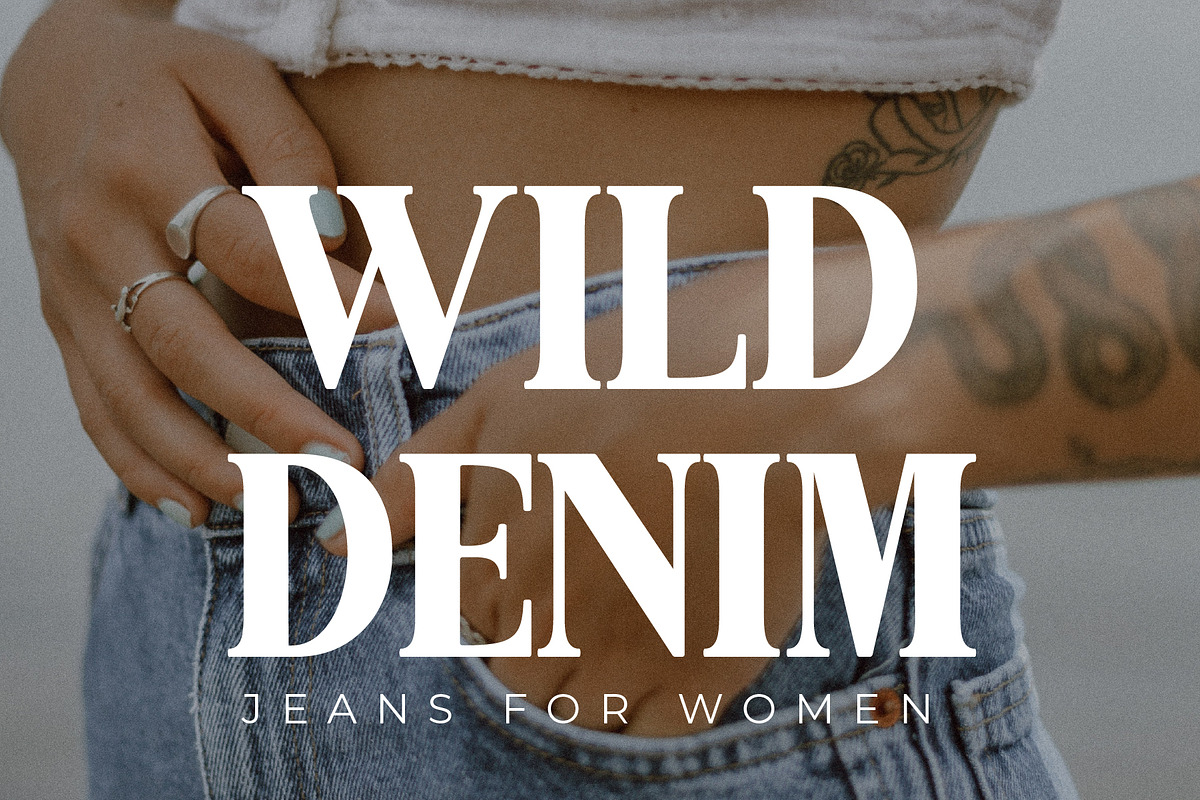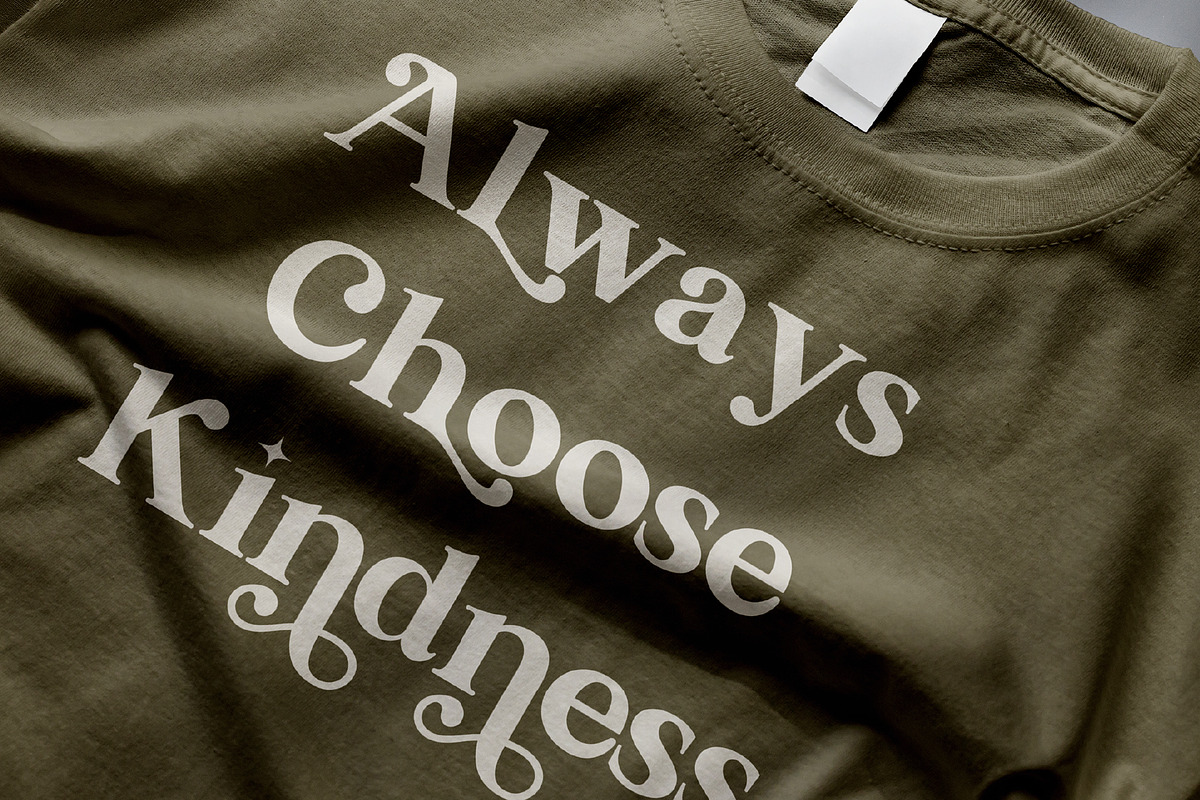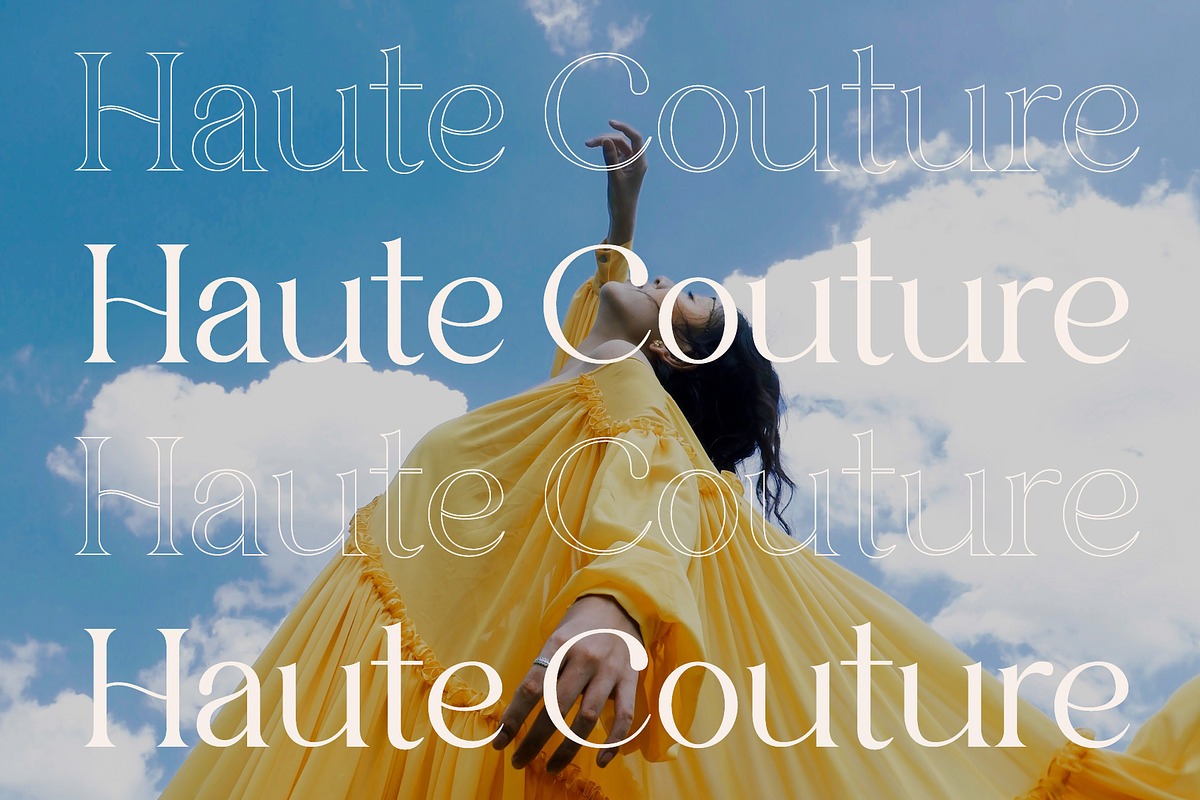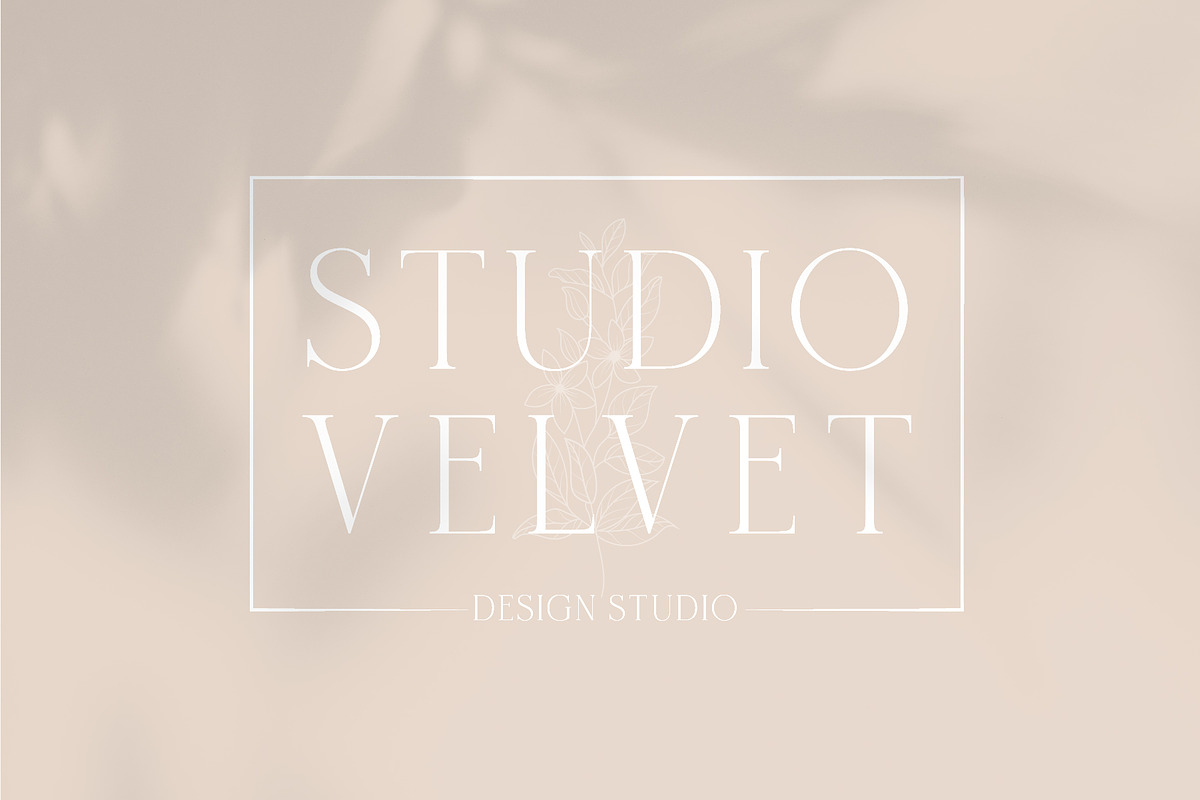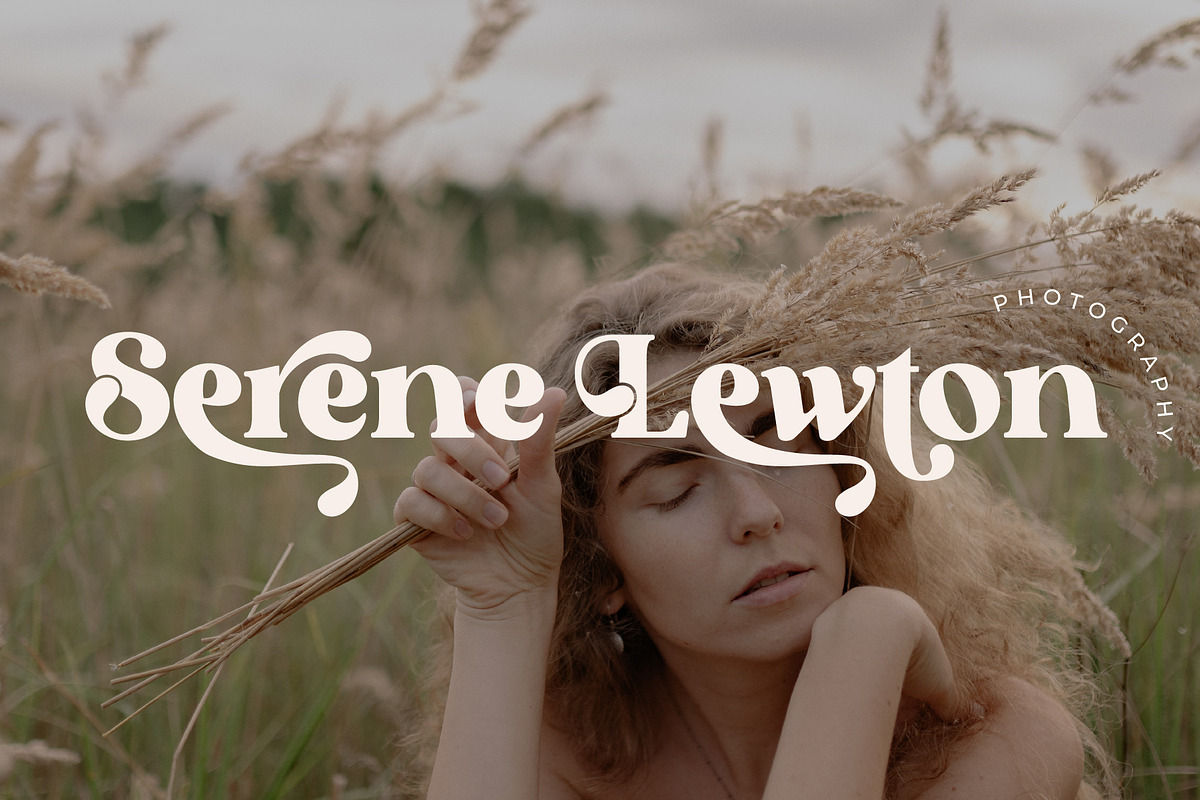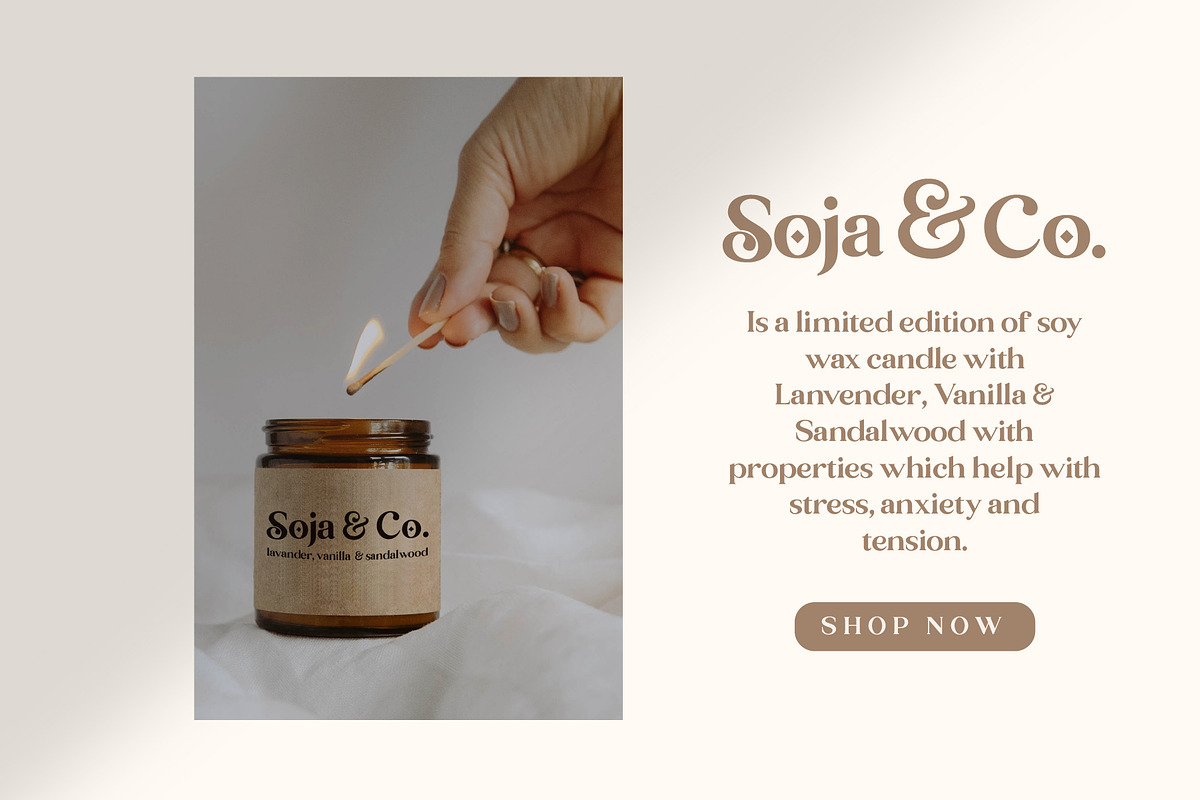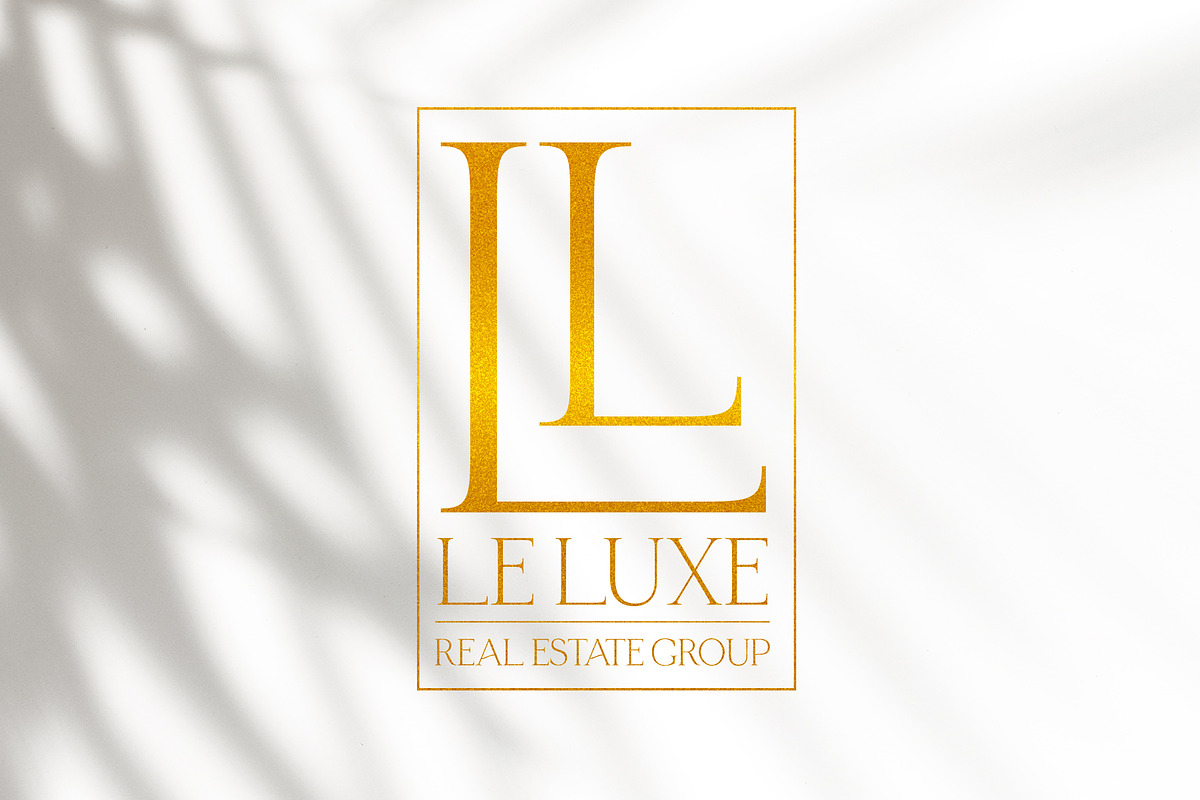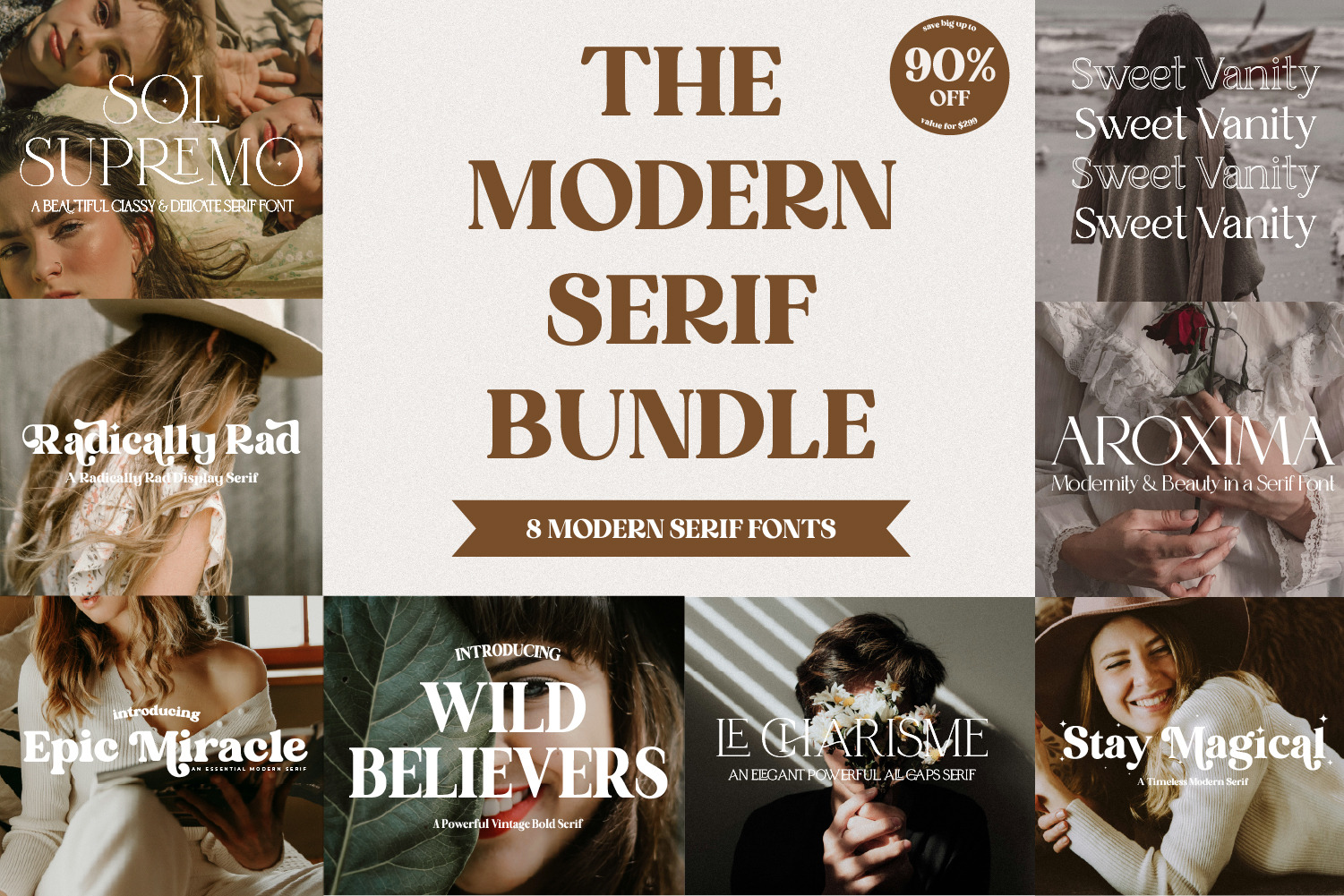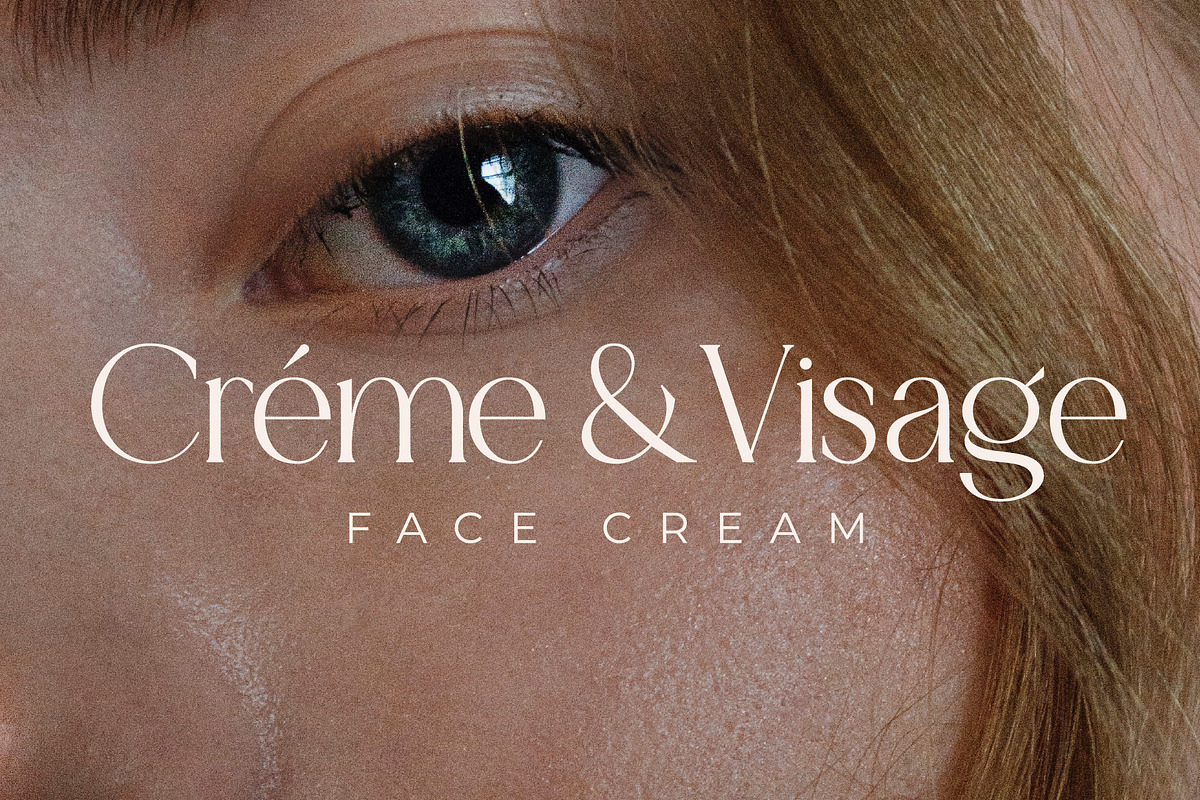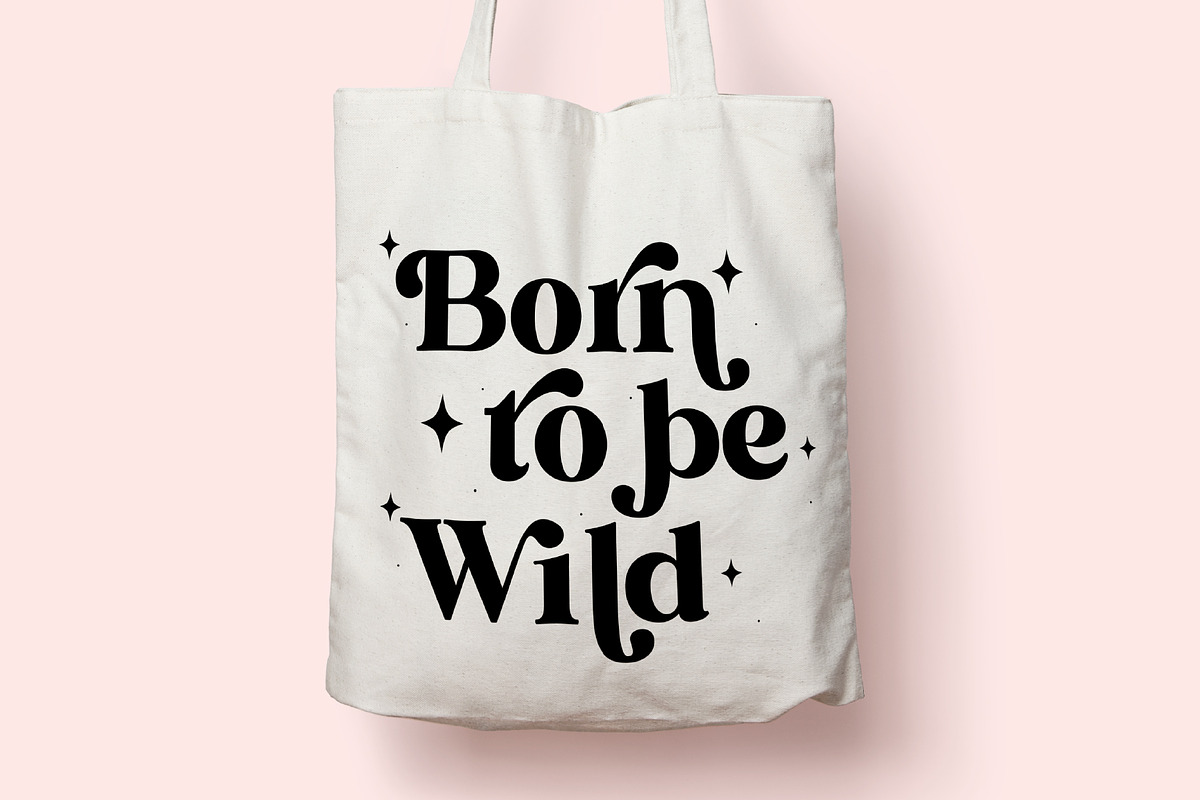
The Modern Serif Font Bundle
Introducing the Modern Serif Font Bundle, a curated collection that combines beauty, versatility, and sophistication. Each font within this bundle has been handcrafted with meticulous attention to detail, offering a wide range of styles and characters to suit any project.
From sleek and minimalistic designs to ornate and decorative layouts, these fonts will elevate your creations to new heights. Whether you are designing a logo, crafting a wedding invitation, perfecting your brand identity, or simply adding a touch of class to your website, this bundle has the perfect font for every occasion.
- Sol Supremo
- WildBelievers
- Sweet Vanity Duo
- Radically Rad
- Aroxima
- Stay Magical
- Le Charisme
- Epic Miracle